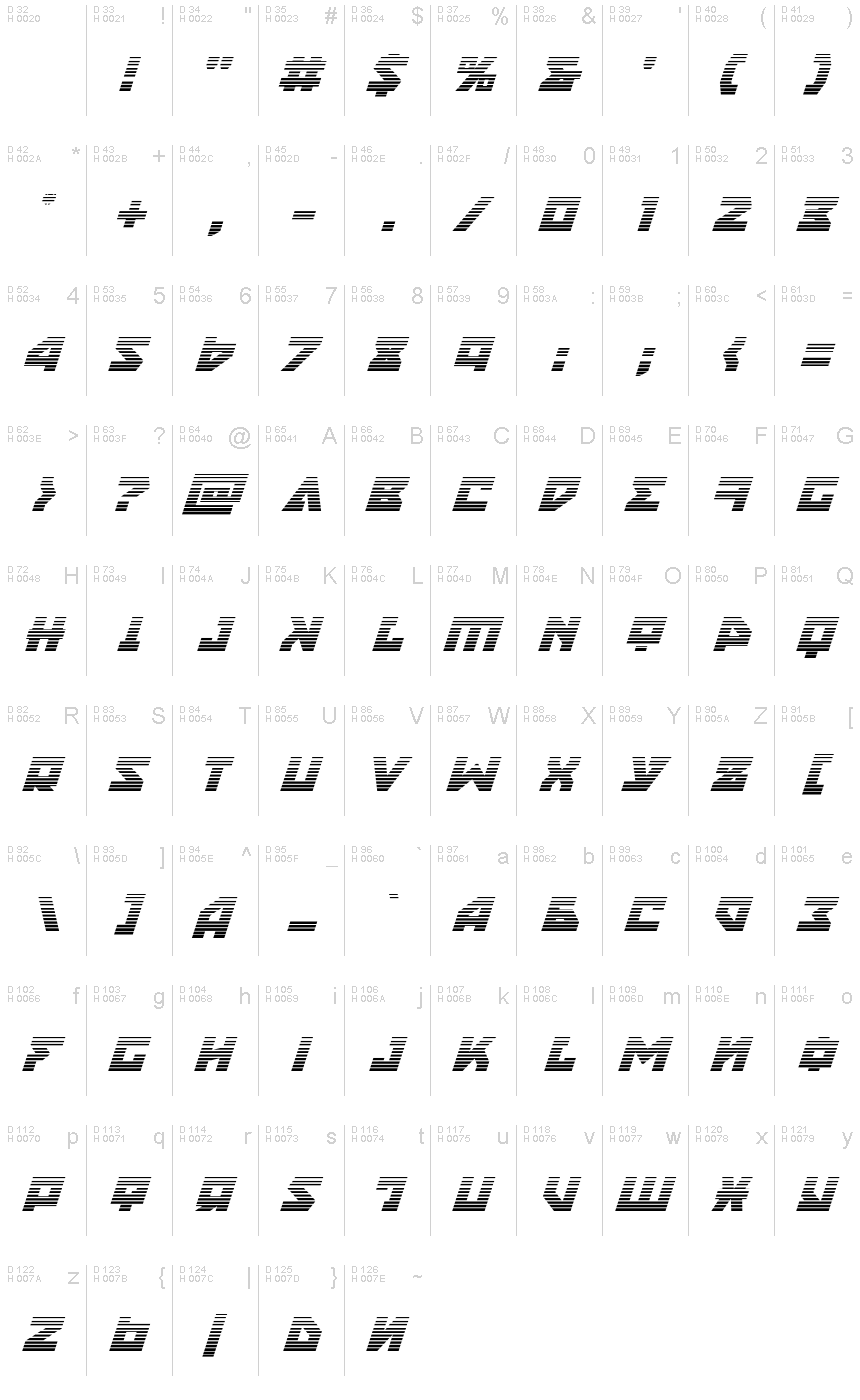
Nyet Gradient Italic
Nyet, a bold and expressive font designed by Daniel Zadorozny, embodies a captivating faux-Russian aesthetic. The expanded letterforms and striking gradient effect convey a sense of dynamism and movement, ideal for attention-grabbing display applications. Nyet's distinctive style lends itself remarkably well to branding, packaging, and editorial design, adding a touch of alluring retro-futurism to any visual narrative. This font's versatility shines through in its ability to command attention while maintaining a harmonious and cohesive typographic presence.
The font's compelling visual character makes it a strong contender for use in a wide range of design projects, from eye-catching posters and magazine covers to immersive digital experiences. Nyet's bold personality and unique visual language make it a standout choice for designers seeking to create impactful, memorable designs that captivate their audience.